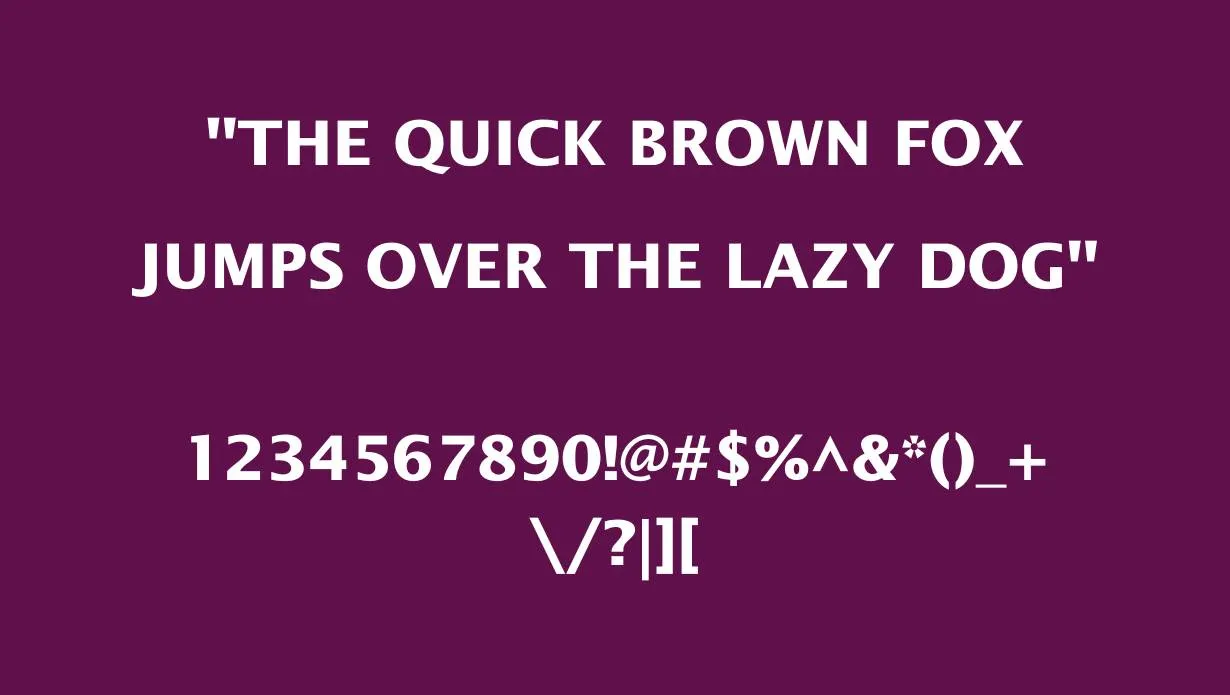
Lucida Sans Font is a versatile and clean typeface known for its readability and clarity. It’s commonly used in various design applications, from corporate branding to web design, where a straightforward and legible appearance is essential.
The font’s simplicity and timeless design make it a reliable choice for projects that prioritize clear communication. Employ the SF Diego sans font for its replacement or as a complementary feature.
| Name | Lucida Sans Font |
| Designer | Kris Holmes and Charles Bigelow |